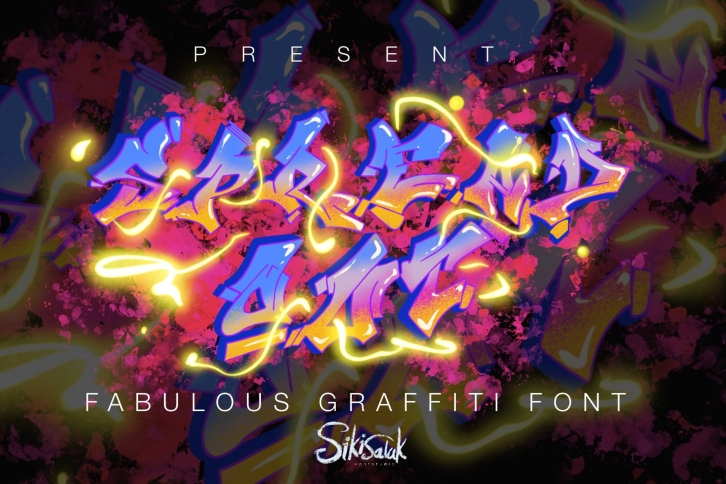
Spread Out Graffiti is a great font that was designed by cikareotype. Imagine the amount of combinations you can create using this font! The archive is 14.47 MB and it was released on October 11, 2020. Spread Out Graffiti looks beautiful on wedding invitations, greeting cards, logos, posters, labels, t-shirt designs, logos, business cards and is perfect for use in ink or watercolor works, fashion, magazines, packaging and food menus, children's books and more!